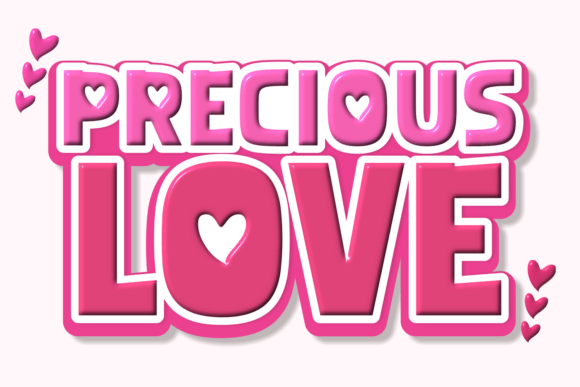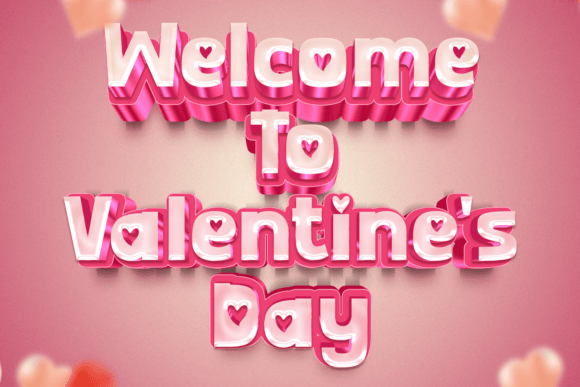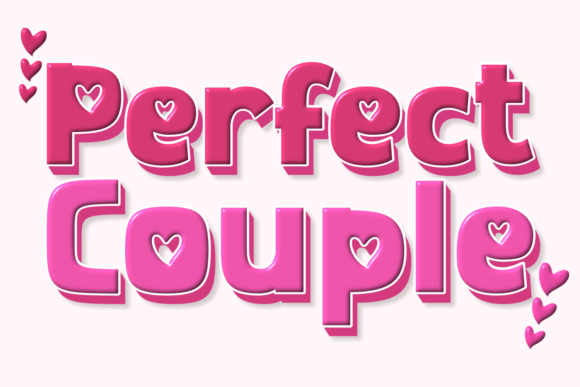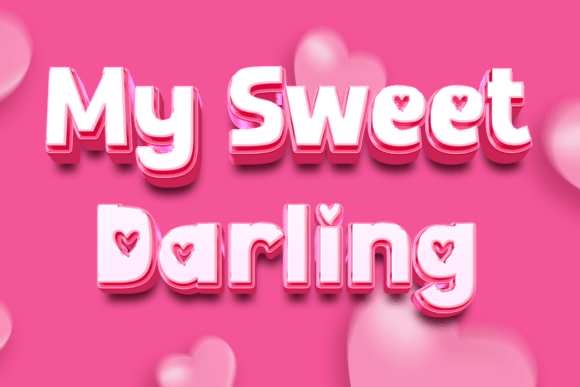
Precious Love Font
About the Precious Love Font
The Precious Love Font offers a perfect balance of form and function for your design needs. Make your designs pop with Precious Love, a playful 3D font full of charm and romance. With its bold, glossy letters and cute heart details, this font is perfect for Valentine’s Day projects, love-themed cards, posters, and more. Let the vibrant pink and layered style add a touch of fun and affection to your creations!
Precious Love’s playful 3D style and heart details make it ideal for headlines, short text blocks on packaging, and eye-catching posters. It also works well for branding projects targeting a youthful or romantic demographic, such as confectionery or gift shops. However, its highly decorative nature makes it unsuitable for body text or UI elements where readability is paramount. Extended use would significantly impair legibility.
Pairing Precious Love effectively requires a contrasting font for balance. A clean sans-serif like Open Sans or a modern geometric sans-serif such as Montserrat would provide excellent contrast and enhance readability in supporting text. Alternatively, a delicate script font could complement its romantic theme, creating a layered, yet harmonious design.
The overall personality is undeniably playful and romantic, yet also bold and attention-grabbing. Its vibrancy makes it a strong choice for conveying happiness and affection.
Precious Love Font Usage Examples
Precious Love Font Example